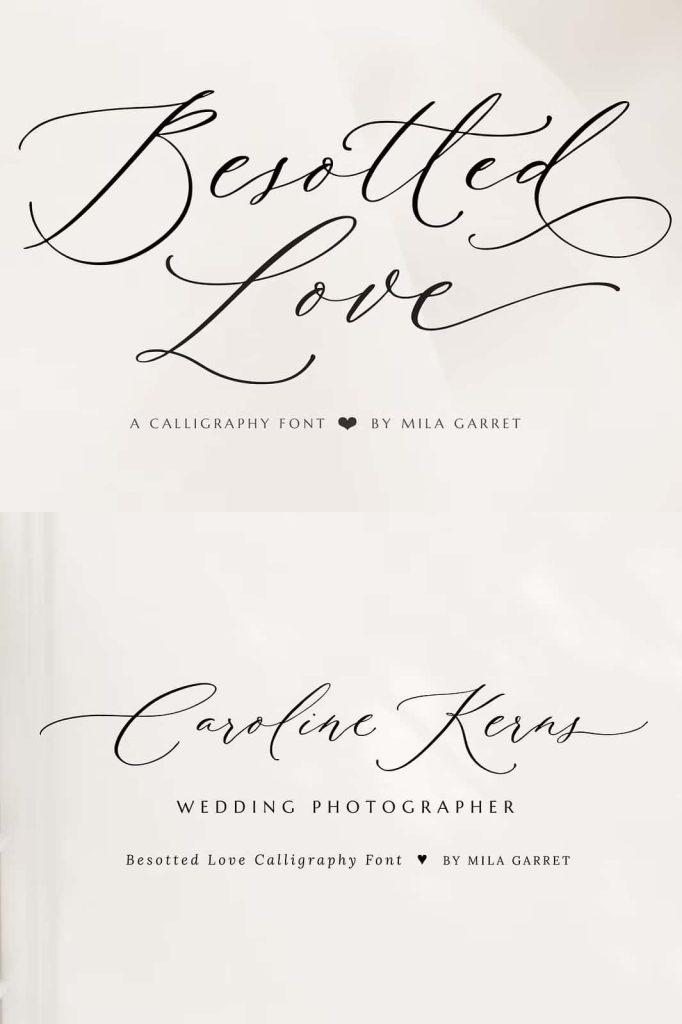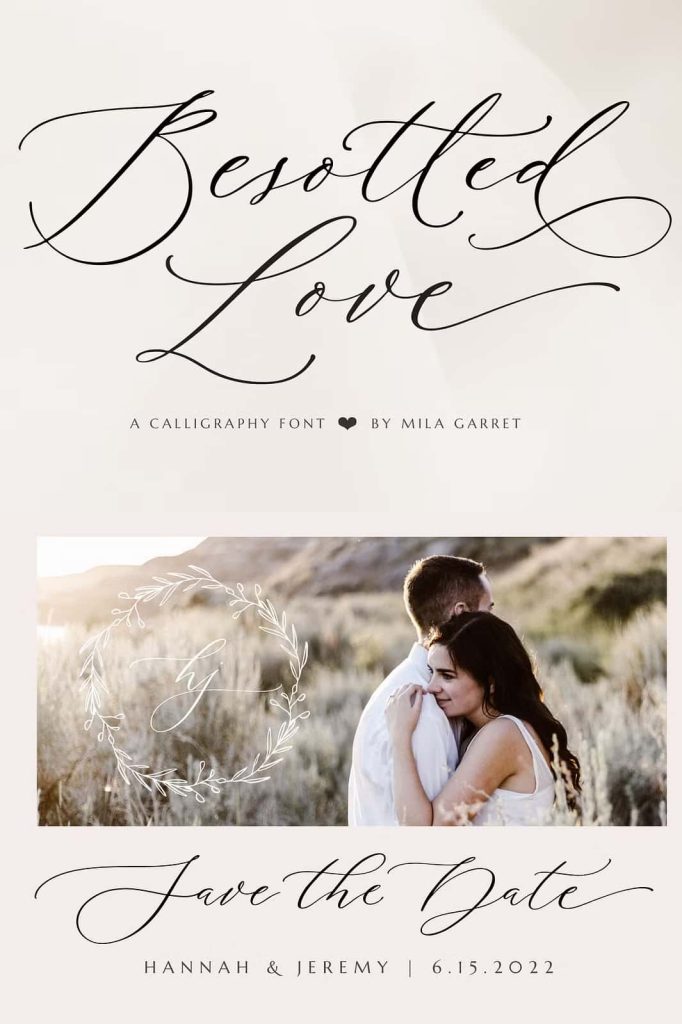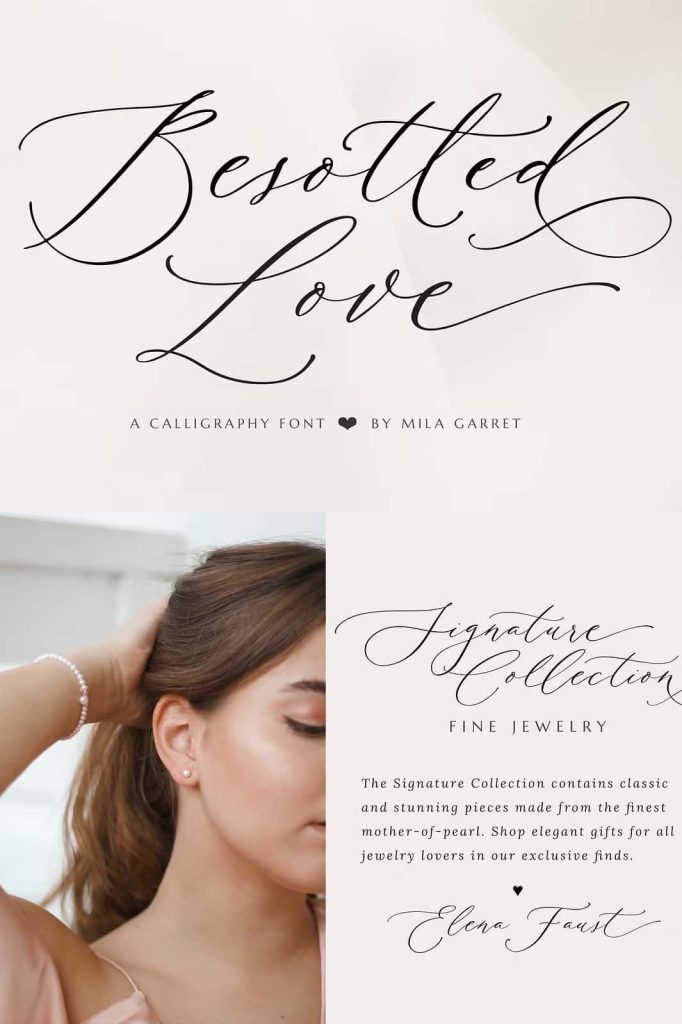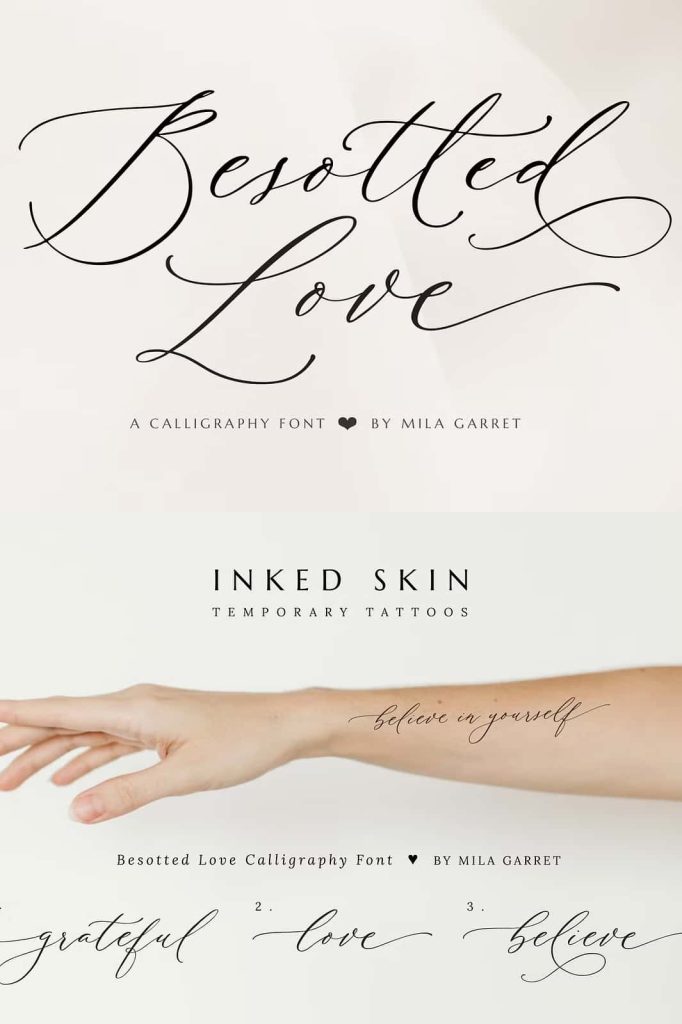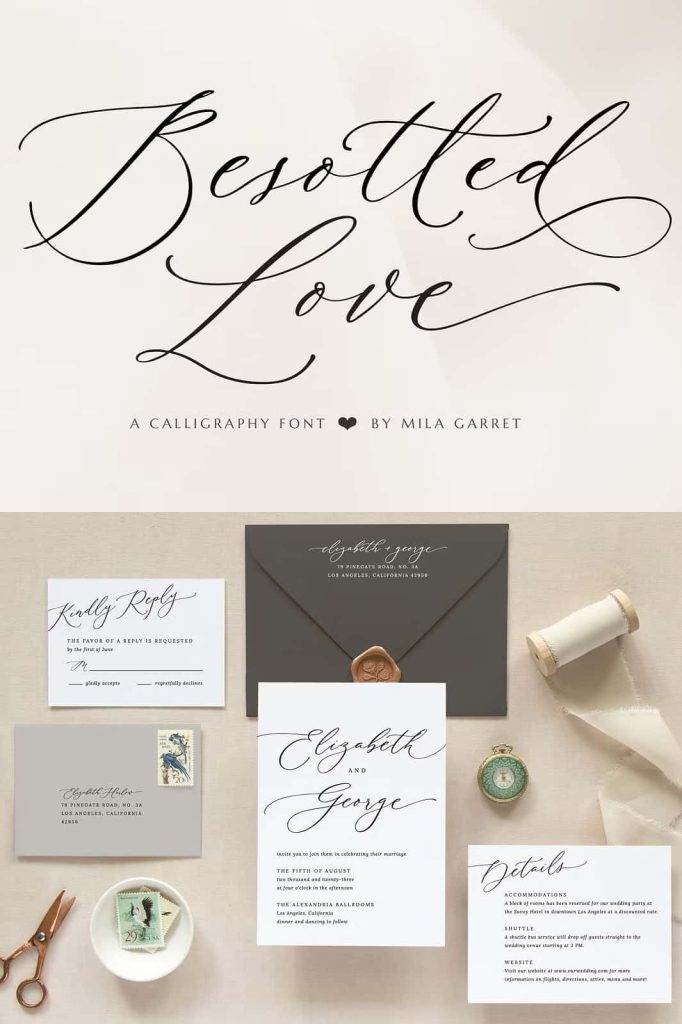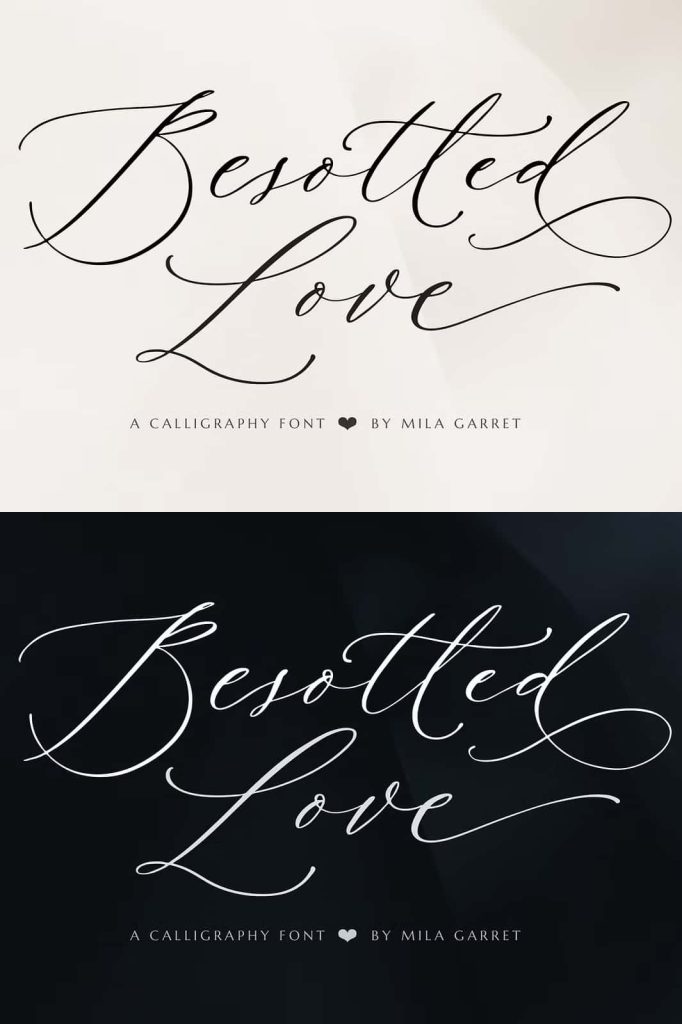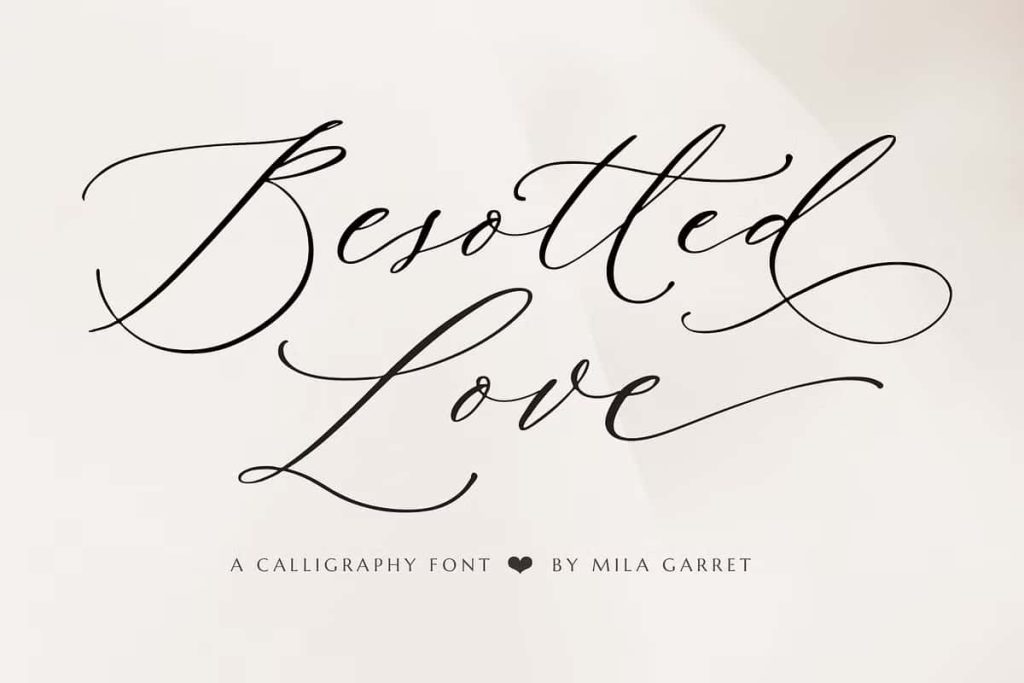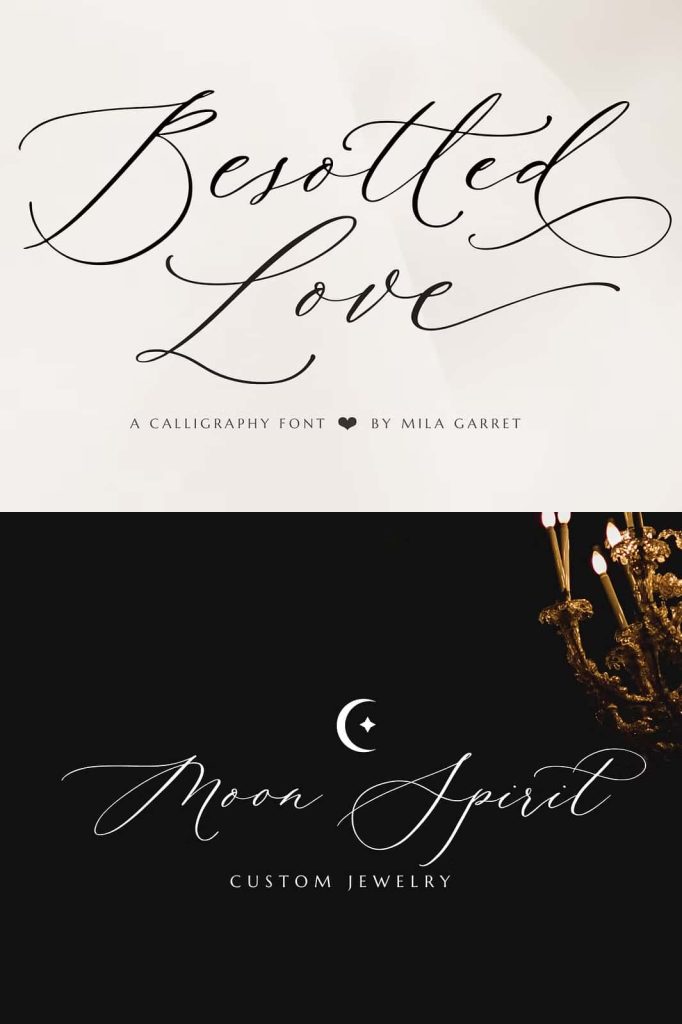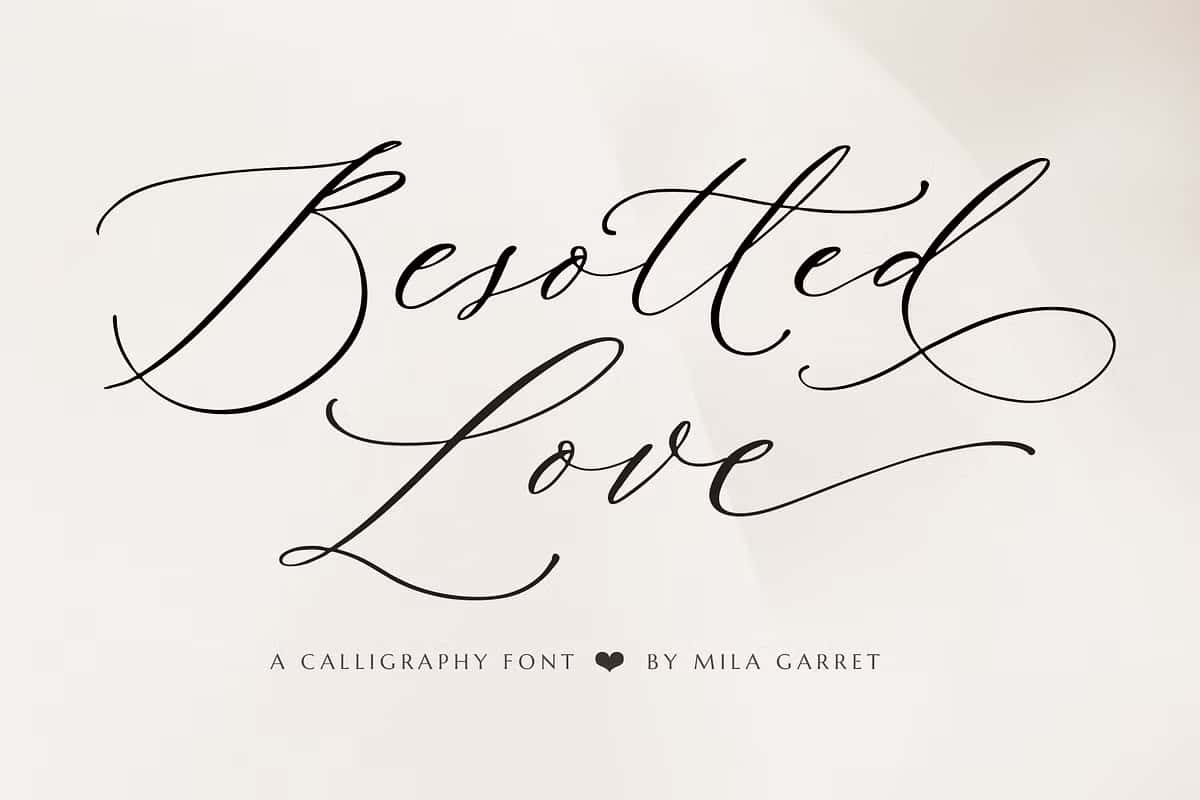
Besotted Love Calligraphy Font: Luxurious Elegance for Wedding and Branding Design
Besotted Love is a luxurious calligraphy font designed to bring elegance, romance, and sophistication into your creative projects. With its graceful strokes and refined letterforms, this typeface captures the beauty of handwritten calligraphy while delivering a polished and professional finish. It allows designers to create visually stunning compositions that feel timeless and emotionally engaging.
This font stands out because it combines delicate details with a strong sense of structure. Every curve and stroke flows naturally, creating a seamless connection between letters. The result is a typeface that feels fluid, elegant, and perfectly suited for high-end design applications.
Elegant Calligraphy with a Luxurious Touch
Besotted Love uses flowing lines and smooth curves to create a refined calligraphy style. Each letter appears carefully crafted, reflecting the artistry of traditional handwriting. This attention to detail gives your designs a sophisticated and premium look.
The font maintains a balance between decorative beauty and readability. Its elegant flourishes enhance the visual appeal without overwhelming the composition. This makes it suitable for both large display text and smaller design elements where clarity remains important.
Perfect for Wedding and Romantic Design Projects
Besotted Love excels in projects that require a romantic and elegant atmosphere. Its soft and graceful style makes it ideal for wedding-related designs and other special occasions. You can use it to create visuals that feel intimate, stylish, and memorable.
The font helps you communicate emotion through typography. It adds warmth and charm to your designs, making them more engaging and visually appealing. Whether you design invitations or branding materials, Besotted Love enhances the overall experience.
Best Use Cases for Besotted Love
- Wedding invitations and stationery
- Elegant logo design and branding
- Photography branding and portfolios
- Modern website design and headers
- Social media graphics and promotional content
Create Sophisticated Branding with Style
Besotted Love helps you build a brand identity that feels luxurious and refined. Its calligraphy style communicates quality, elegance, and attention to detail. This makes it an excellent choice for businesses that want to present a premium image.
By using this font, you can design logos and branding elements that stand out with grace. Its flowing letterforms create a distinctive visual signature that leaves a lasting impression on your audience.
Enhance Wedding Stationery and Invitations
Besotted Love is particularly effective in wedding stationery design. Its elegant curves and romantic style make it perfect for invitations, save-the-date cards, menus, and other event materials. It helps you create designs that feel personal and meaningful.
The font adds a sense of ceremony and beauty to every detail. It transforms simple text into an artistic element that enhances the overall aesthetic of your design.
Pairing Besotted Love with Other Fonts
To create a balanced design, pair Besotted Love with clean and simple fonts. Sans serif typefaces work well as companions because they provide contrast and improve readability. This combination allows Besotted Love to remain the focal point while supporting text stays clear and structured.
Use Besotted Love for headlines, names, or key phrases, and combine it with a minimal font for body text. This approach ensures your design remains both elegant and functional.
Improve Your Creative Workflow
Besotted Love simplifies the process of creating elegant typography. Its natural flow and refined design reduce the need for additional decoration. You can achieve high-end results quickly without extensive adjustments.
The font encourages creativity and experimentation. You can explore different layouts, spacing, and compositions to discover new possibilities. Its versatility makes it suitable for a wide range of design styles.
Key Advantages of Besotted Love
- Luxurious and elegant calligraphy style
- Smooth and flowing letter connections
- Perfect for wedding and romantic designs
- Enhances branding with a premium appearance
- Versatile for both print and digital projects
Conclusion
Besotted Love is more than just a calligraphy font; it is a creative tool that brings elegance and emotion into your designs. Its refined curves, delicate details, and timeless style make it an excellent choice for designers who want to create sophisticated and memorable visuals. By incorporating Besotted Love into your projects, you can produce designs that feel luxurious, graceful, and truly captivating.